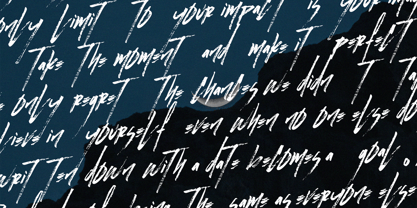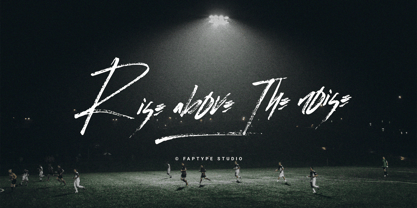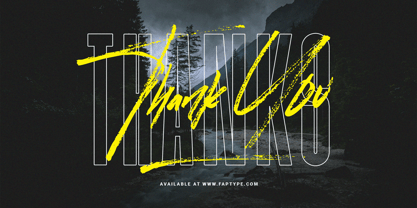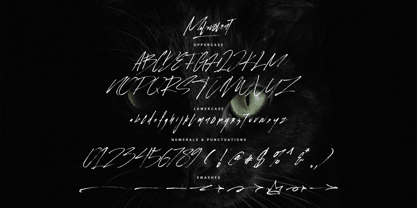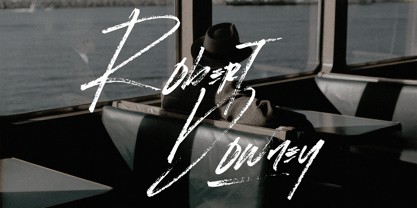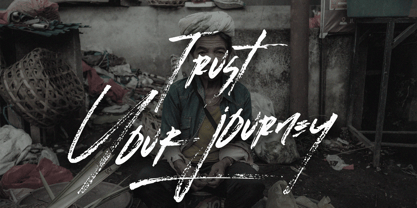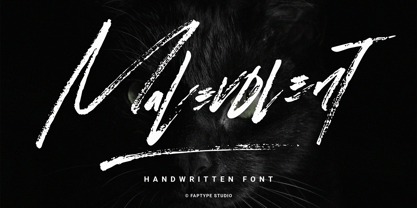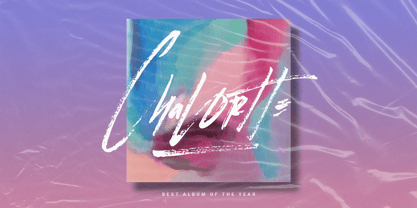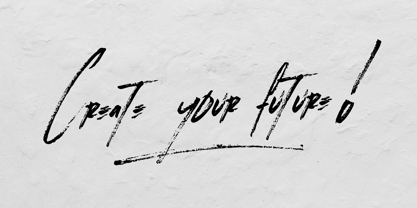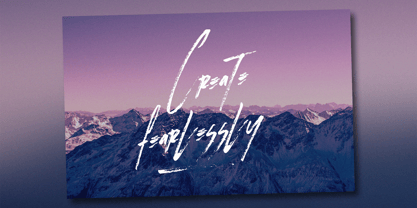
Malevolent Brush
Malevolent Brush – Raw Energy in Every Stroke
Malevolent Brush is a handcrafted dry brush font that captures the raw, rebellious spirit of traditional brush lettering. Created manually using a Tombow Fudenosuke brush pen, each letter was carefully drawn on paper, scanned in high resolution, and meticulously digitized to retain its natural texture and imperfect beauty. The result is an authentic brush font that feels alive—full of character, motion, and expressive energy.
This font is designed for creators who want their typography to stand out. Malevolent Brush includes a complete set of uppercase and lowercase characters, a wide range of punctuation and symbols, swashes for added flair, and multilingual support that covers most Latin-based languages. It’s versatile and ready to elevate your design projects—whether you're working on music merchandise, streetwear branding, poster headlines, editorial layouts, social media graphics, or even horror and metal-inspired artwork.
What makes Malevolent Brush different is its genuine handcrafted look—not simulated or artificial. The dry brush strokes bring an organic, gritty feel that adds emotional depth and attitude to your words. Whether you're aiming for a bold, aggressive vibe or a more grunge and underground look, this font delivers intensity and uniqueness in every letter.
Key Features:
• Hand-drawn with Tombow Fudenosuke brush pen
• Scanned and digitized to retain raw texture
• Uppercase & lowercase letters
• Symbols & punctuation
• Swash alternates
• Multilingual support
• Perfect for posters, apparel, branding, album covers, social media, and more
Get creative and let your typography scream with Malevolent Brush – a font made for rule breakers, risk takers, and designers who dare to be different.
Malevolent Brush Features:
• A full set of Uppercase and Lowercase
• Numbers and Punctuation
• Multilingual Language Support
• PUA Encoded Characters
• OpenType Features
• +308 Total Glyphs